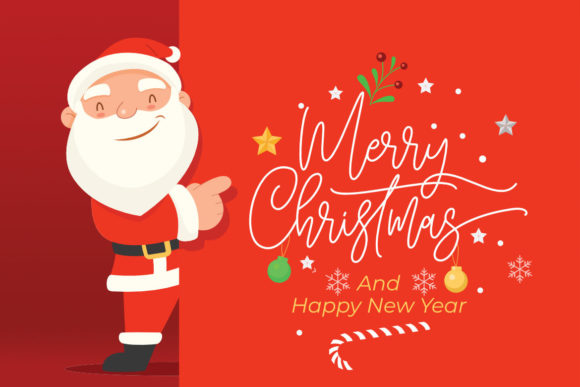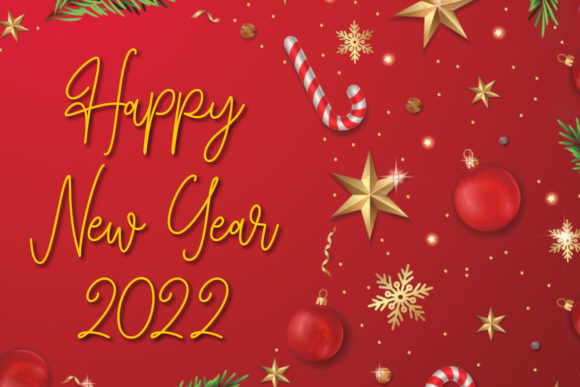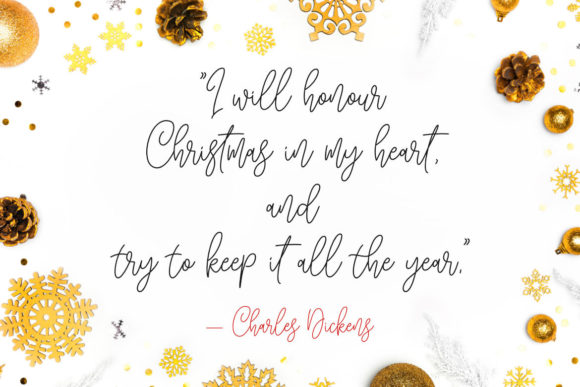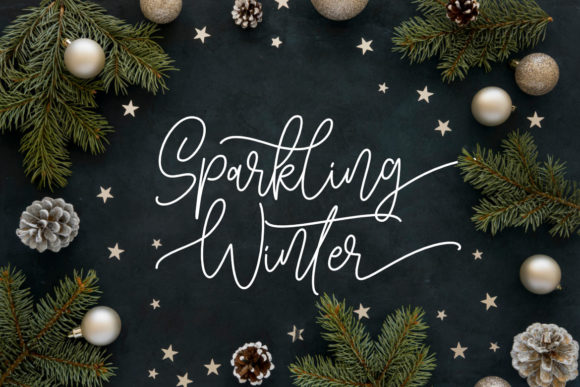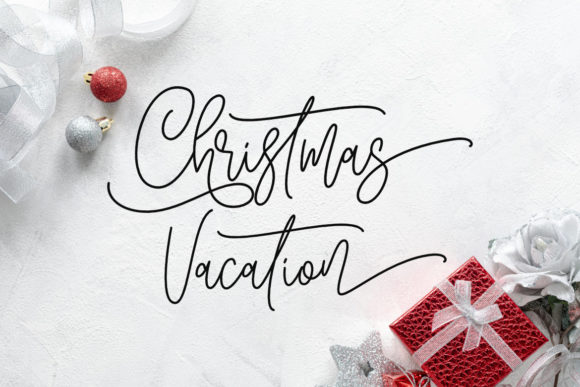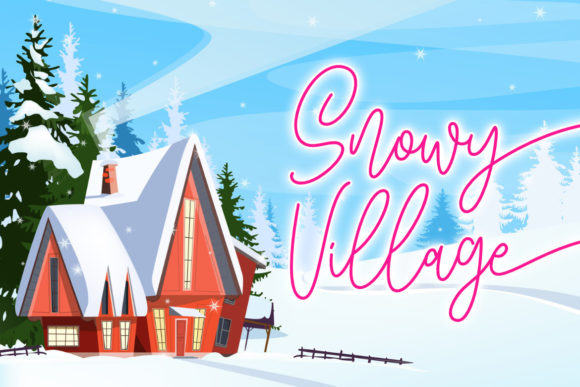
Introducing Blissful Christmas Font: The Perfect Addition to Your Holiday Designs
As the holiday season approaches, designers and crafters are on the lookout for the perfect fonts to add a touch of magic to their Christmas creations. If you’re searching for a stylish and delicate script font that exudes a clean, thin, and smooth vibe, look no further than Blissful Christmas Font. This beautiful monoline signature font is sure to be a hit for any design you want to add it to, from Christmas cards and invitations to quotes, clothing, magazines, branding, and more.
What Makes Blissful Christmas Font So Special?
Blissful Christmas Font is a unique and elegant script font that is perfect for adding a touch of sophistication to your holiday designs. Its clean and thin lines give it a smooth and refined look that is sure to impress. Whether you’re creating Christmas cards, invitations, or social media graphics, this font is sure to make your designs stand out.
Uses for Blissful Christmas Font
The versatility of Blissful Christmas Font is one of its most appealing features. Here are just a few ideas for how you can use this beautiful font in your holiday designs:
- Christmas Cards: Add a touch of elegance to your holiday cards with Blissful Christmas Font. Use it for the main text or as a decorative element to add a personal touch.
- Invitations: Create beautiful and stylish invitations for your holiday parties or events using Blissful Christmas Font.
- Quotes: Use Blissful Christmas Font to add a touch of sophistication to your holiday quotes and sayings.
- Clothing: Add a festive touch to your holiday clothing and accessories with Blissful Christmas Font.
- Magazines: Use Blissful Christmas Font to add a touch of elegance to your holiday-themed magazines and publications.
- Branding: Use Blissful Christmas Font as part of your holiday branding to add a touch of sophistication and style.
Why Designers and Crafters Love Blissful Christmas Font
Blissful Christmas Font has quickly become a favorite among designers and crafters due to its unique combination of style and versatility. Here are just a few reasons why:
- Elegant and Refined: Blissful Christmas Font has a clean and refined look that is perfect for adding a touch of sophistication to your holiday designs.
- Easy to Read: Despite its delicate lines, Blissful Christmas Font is easy to read, making it perfect for use in a variety of designs.
- Highly Versatile: Blissful Christmas Font can be used in a wide range of designs, from Christmas cards and invitations to clothing and branding.
- Unique and Eye-Catching: Blissful Christmas Font is sure to make your designs stand out with its unique and eye-catching style.
Tips for Using Blissful Christmas Font
Here are a few tips for getting the most out of Blissful Christmas Font:
- Pair it with Bold Fonts: Pair Blissful Christmas Font with bold fonts for a striking contrast that is sure to make your designs stand out.
- Use it for Headings: Use Blissful Christmas Font for headings and titles to add a touch of elegance and sophistication.
Blissful Christmas Font is a beautiful and versatile script font that is perfect for adding a touch of elegance and sophistication to your holiday designs. With its clean and refined look, easy readability, and highly versatile style, it’s no wonder that designers and crafters are falling in love with this font. Whether you’re creating Christmas cards, invitations, clothing, or branding, Blissful Christmas Font is sure to be a hit. So why wait? Download Blissful Christmas Font today and start adding a touch of magic to your holiday designs!